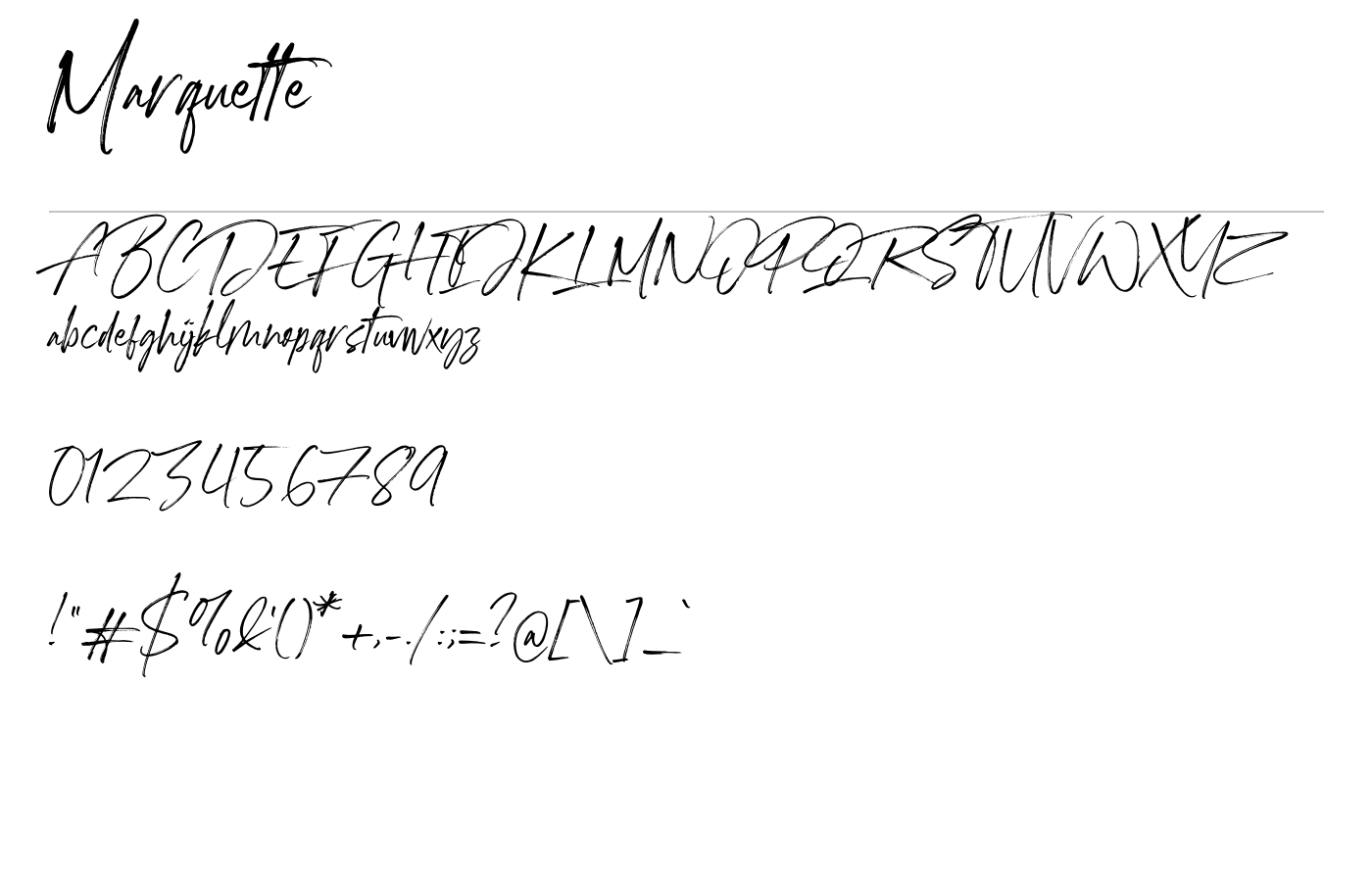
Marquette is a stylish handwritten script font that captures a lively, artistic vibe with its tall, narrow letterforms and expressive, brush-like strokes. Its irregular, flowing characters give it a casual yet elegant personality, making it perfect for creative branding, invitations, and modern editorial designs that want a personal, dynamic touch. This font works well in contexts where a unique, handcrafted feel is desired to stand out and convey creativity.
Marquette Font